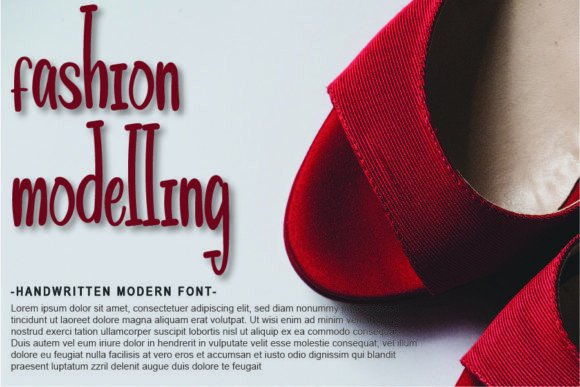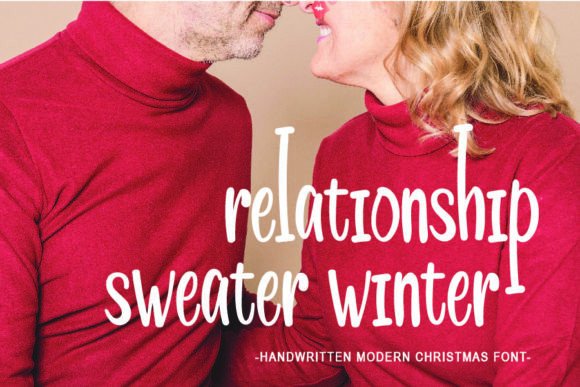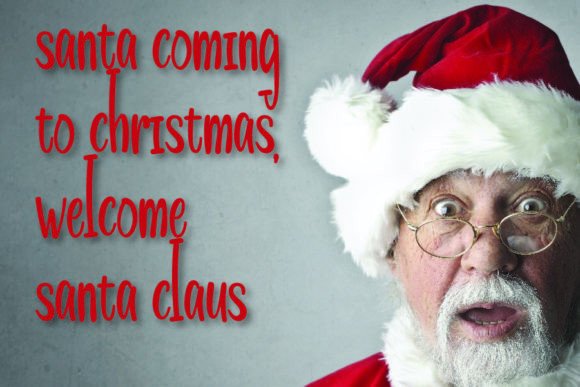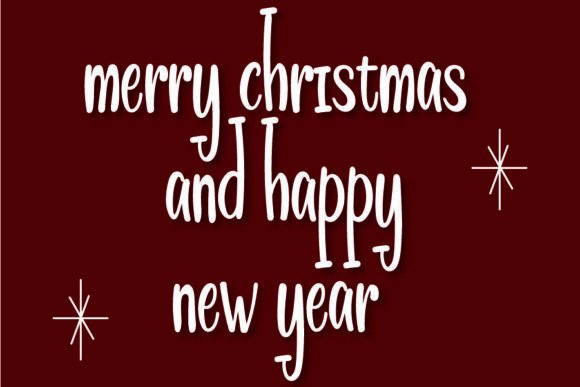
Introduction to Better Christmas Font
Better Christmas font is a festive and playful typeface adorned.
Perfect for adding a touch of holiday magic to your Christmas cards, decorations, and more Better Christmas font is designed to enhance the beauty of your projects.
Key Features of Better Christmas Font
Why Choose Better Christmas Font?
Better Christmas Font offers exceptional quality and versatility, making it a valuable addition to your design toolkit. Whether you’re creating for personal projects or commercial use, Better Christmas Font delivers professional results.